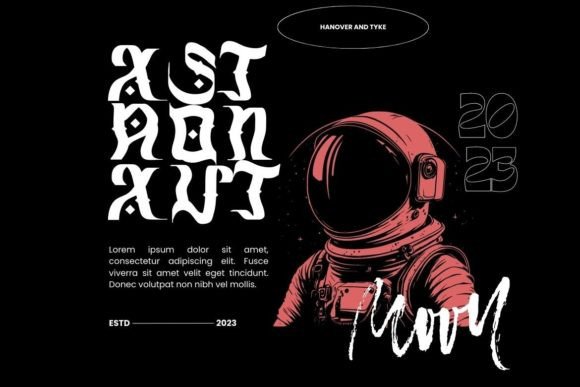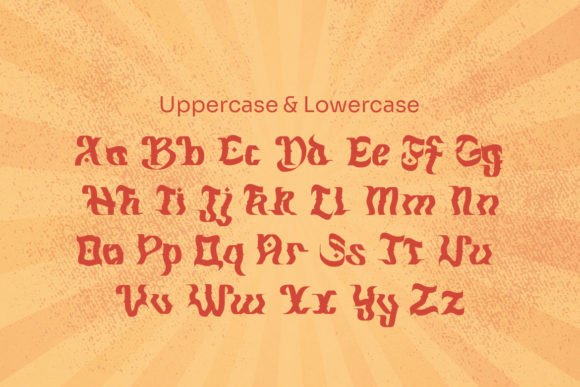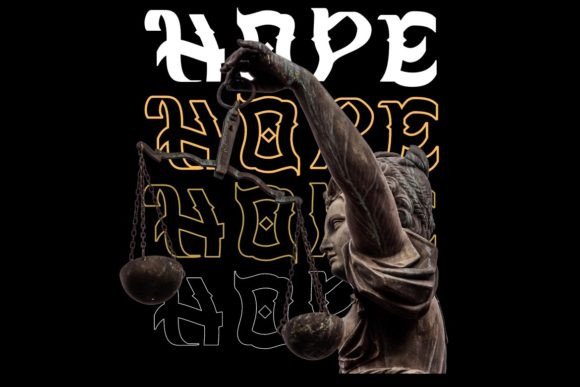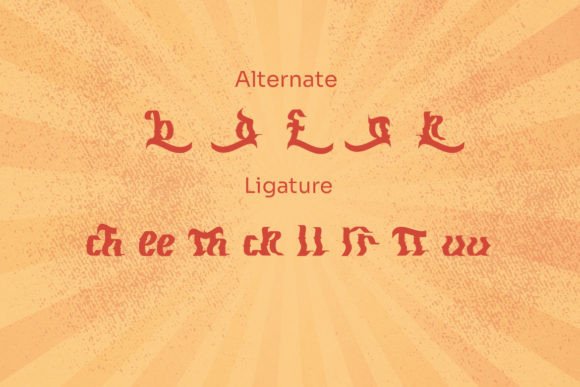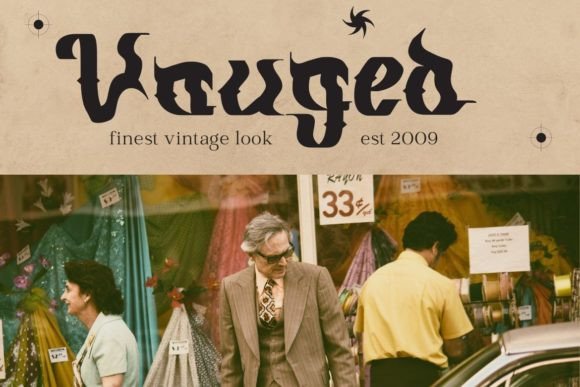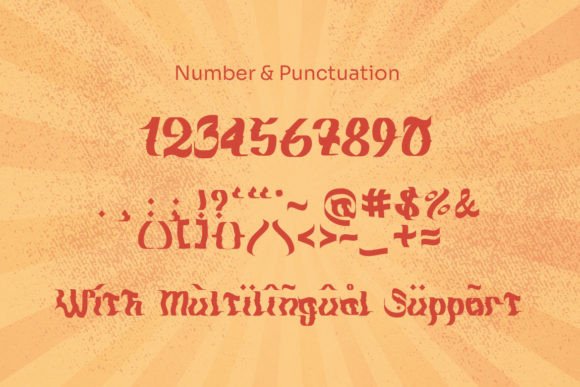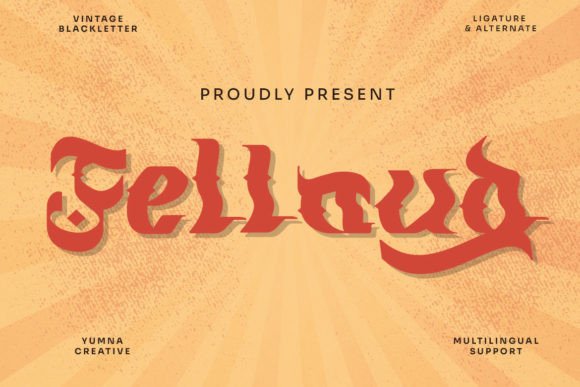
Fellaud Font: Elevate Your Designs with a Vintage-Style Blackletter-Inspired Display Font
Are you looking for a font that adds a touch of elegance and sophistication to your creative projects? Look no further than Fellaud Font, a cool, vintage-style, blackletter-inspired display font that’s sure to take your designs to the next level. In this article, we’ll dive into the world of Fellaud Font, exploring its features, benefits, and uses, as well as provide tips and tricks for incorporating it into your design workflow.
What is Fellaud Font?
Fellaud Font is a unique and stylish display font that’s inspired by traditional blackletter calligraphy. Its vintage-style aesthetic is reminiscent of classic Gothic scripts, yet it has a modern twist that makes it perfect for contemporary designs. With its bold, dramatic lines and elegant flair, Fellaud Font is ideal for creating eye-catching headlines, titles, and captions that demand attention.
Key Features of Fellaud Font
• Vintage-style blackletter-inspired design: Fellaud Font boasts a distinctive, classic look that’s perfect for designs that require a touch of nostalgia and sophistication.
• Cool and elegant aesthetic: This font’s sleek lines, curves, and flourishes create a refined and stylish appearance that’s sure to impress.
• Display font perfect for headlines and titles: Fellaud Font is optimized for large text sizes, making it perfect for creating bold, eye-catching headlines and titles.
• Easy to read and versatile: Despite its ornate design, Fellaud Font remains highly legible, making it suitable for a wide range of design applications.
Benefits of Using Fellaud Font
So, why should you choose Fellaud Font for your next design project? Here are just a few benefits of using this amazing font:
• Adds elegance and sophistication to your designs: Fellaud Font’s refined aesthetic instantly elevates your designs, adding a touch of luxury and refinement.
• Creates visual interest and hierarchy: This font’s bold, dramatic lines and elegant flourishes create a clear visual hierarchy, drawing attention to key elements in your design.
• Perfect for branding, packaging, and advertising: Fellaud Font’s unique blend of vintage charm and modern style makes it ideal for branding, packaging, and advertising projects that require a distinctive look.
Tips and Tricks for Using Fellaud Font
To get the most out of Fellaud Font, here are some tips and tricks to keep in mind:
• Use it sparingly: Fellaud Font’s bold design makes it perfect for headlines and titles, but use it sparingly to avoid overwhelming your design.
• Pair it with complementary fonts: Combine Fellaud Font with simpler, sans-serif fonts to create visual contrast and add depth to your design.
• Experiment with colors and textures: Fellaud Font looks stunning in a range of colors and textures, so don’t be afraid to experiment and find the perfect combination for your design.
Who Can Benefit from Fellaud Font?
Fellaud Font is perfect for a wide range of designers and crafters, including:
• Graphic designers: Fellaud Font is ideal for graphic designers looking to add a touch of elegance and sophistication to their designs.
• Branding and packaging designers: This font’s unique blend of vintage charm and modern style makes it perfect for branding and packaging projects.
• Advertising and marketing professionals: Fellaud Font’s bold, eye-catching design makes it perfect for advertising and marketing projects that require a distinctive look.
• Crafters and DIY enthusiasts: Fellaud Font is also perfect for crafters and DIY enthusiasts looking to add a touch of personality to their handmade projects.
In conclusion, Fellaud Font is a cool, vintage-style, blackletter-inspired display font that’s perfect for designers and crafters looking to add a touch of elegance and sophistication to their creative projects. With its bold, dramatic lines and elegant flair, Fellaud Font is sure to take your designs to the next level. So why wait? Add Fellaud Font to your design workflow today and enjoy the results!